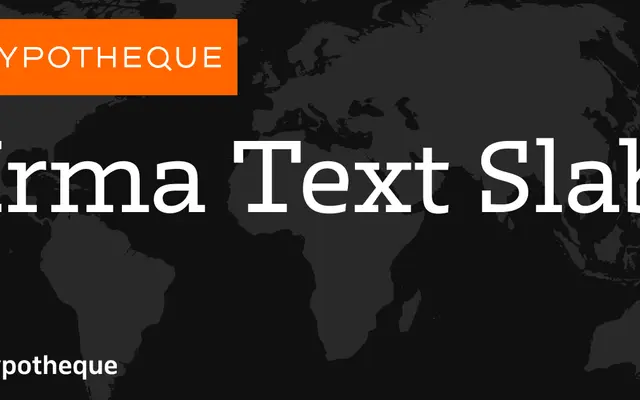
Irma Text Slab specimen from Typotheque
A slab serif text cut within the expansive Irma type system, available in nine weights with matching italics and a narrow width variant.
Irma Text Slab is one of several subfamilies in the Irma system, which spans grotesque, rounded, slab and display cuts in a coordinated range. Nine weights from Thin to Black, each with a corresponding italic, give it broad tonal coverage for editorial and editorial-adjacent work. The system also includes a variable font, a narrow width and a display slab counterpart, making it suited to complex typographic hierarchies.
Irma Text Slab is a slab serif variant within the broader Irma system, sitting alongside grotesque and rounded text cuts; the slab serifs give it a structured, workhorse quality suited to extended text setting.